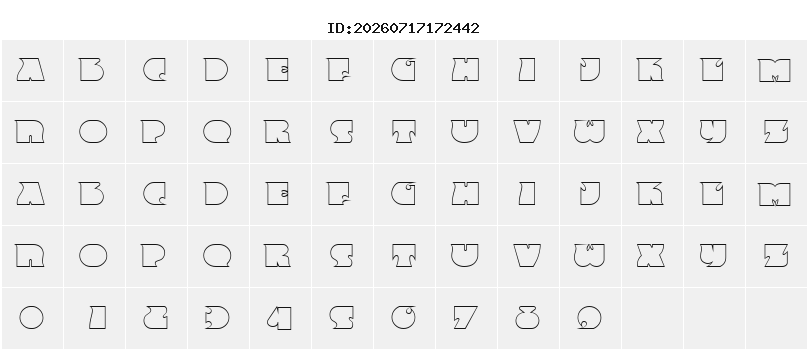
Big Moma Outline SF Preview
• Font Name: Big Moma Outline SF
• Full Font Name: Big Moma Outline SF
About Big Moma Outline SF.ttf
Big Moma Outline SF.ttf is a modern, elegant sans-serif font designed for ultimate readability and visual harmony. Perfect for branding, headlines, web design, and print materials.